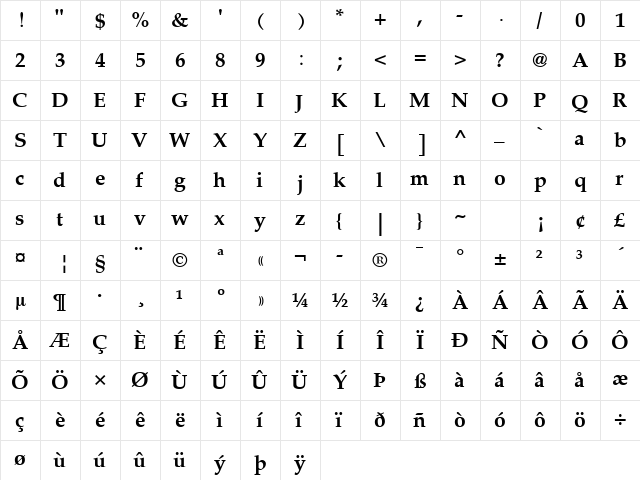
Nazanin LT Bold
| Foundry | Linotype GmbH |
| Designer | Mr. Haghighi |
Design Context for Nazanin LT Typeface
Nazanin LT offers clean, dependable letterforms without strong stylistic allegiance, making it a practical choice for designers who need flexibility. The heavy weight commands attention and anchors typographic hierarchies.